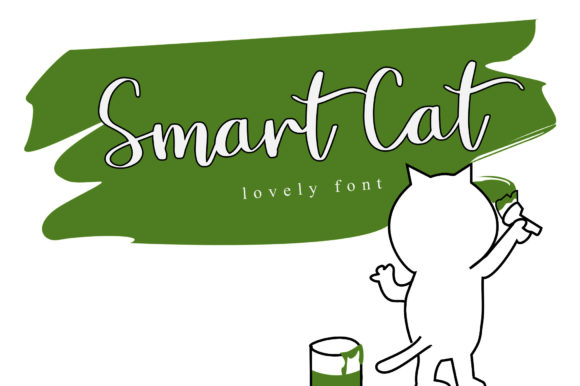
In the realm of typography, where letters dance and words ignite imagination, the Smart Cat Font takes center stage as a captivating creation. Its graceful curves and refined strokes evoke a sense of sophistication and elegance, inviting you to embark on a captivating storytelling journey.
With its script font family, Smart Cat effortlessly captures the essence of handwritten beauty, transforming your digital creations into works of art. Its stylish alternates and ligatures, like intricate flourishes, add a touch of personal flair, making each design uniquely yours.
As the perfect partner for your creative projects, Smart Cat shines in various applications. Unleash its potential in logos, branding, wedding invitations, social media graphics, posters, and book covers. Its versatility knows no bounds, allowing you to craft designs that leave a lasting impression.
Journey through the world of stories and emotions with the Smart Cat Font, a creation by najmustsaqib.creator that embodies the essence of artistic expression. Say goodbye to ordinary fonts and embrace the extraordinary, transforming your designs into captivating narratives that resonate with your audience.
Discover the Smart Cat Font today, and let your imagination run wild as you explore the endless possibilities of creative expression. Let your designs captivate, inspire, and leave an unforgettable mark on the world.